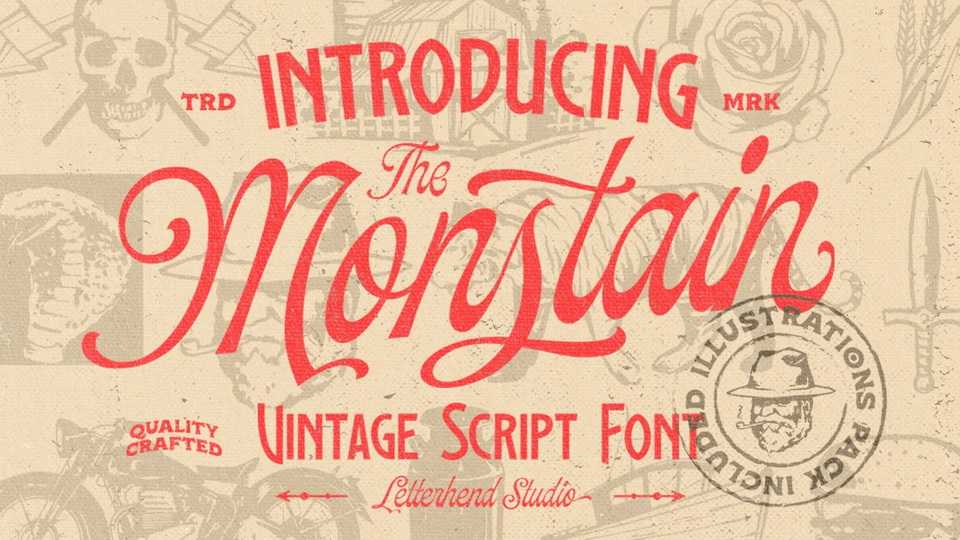
Download The Monstain font, a script typeface with a touch of vintage look and feel. The Monstain font is perfectly made for vintage signages and lettering artworks, invitations, labels, logos, magazines, books, greeting and wedding cards, packaging, fashion, make up, novels or any type of advertising purpose.